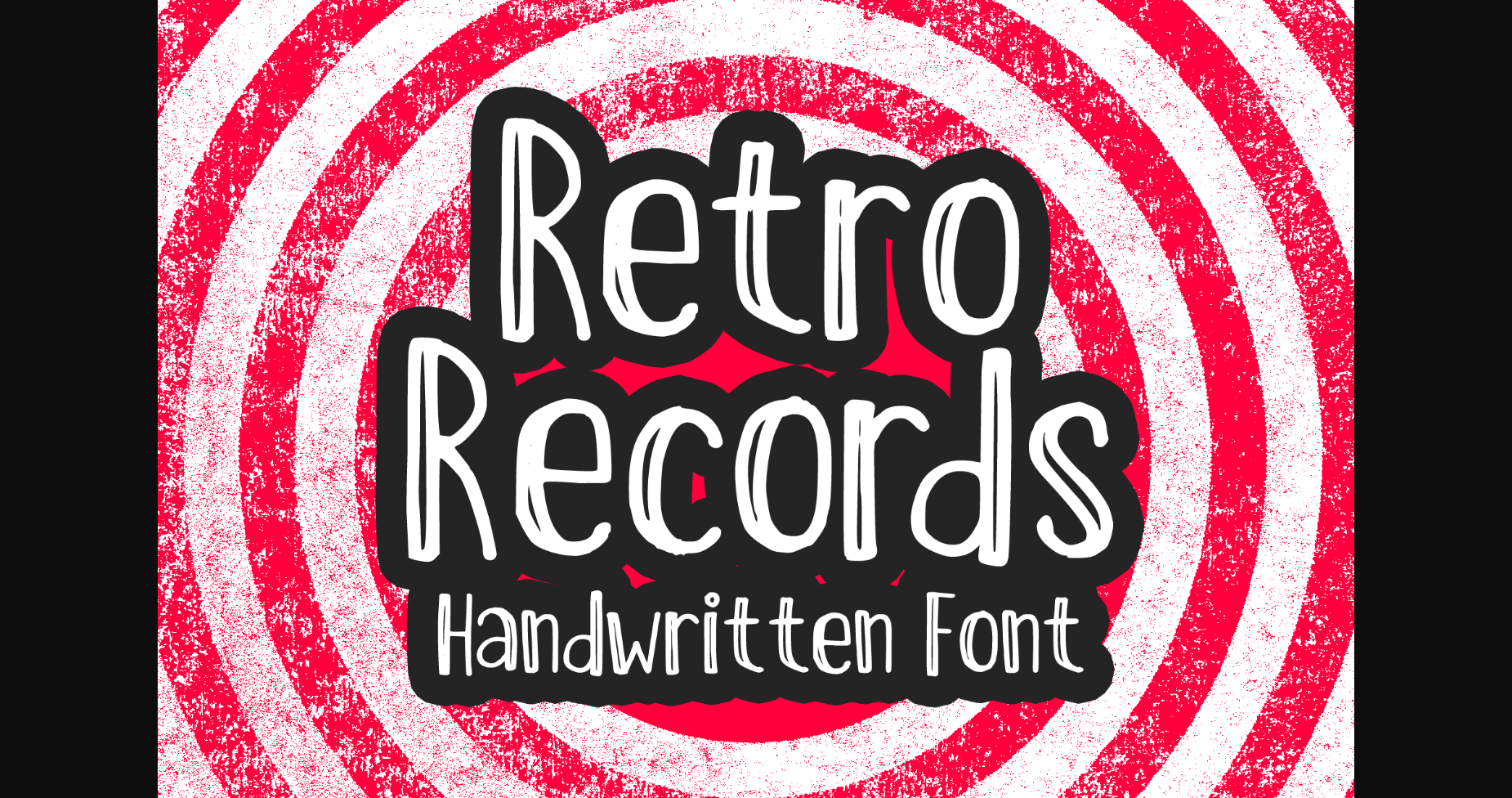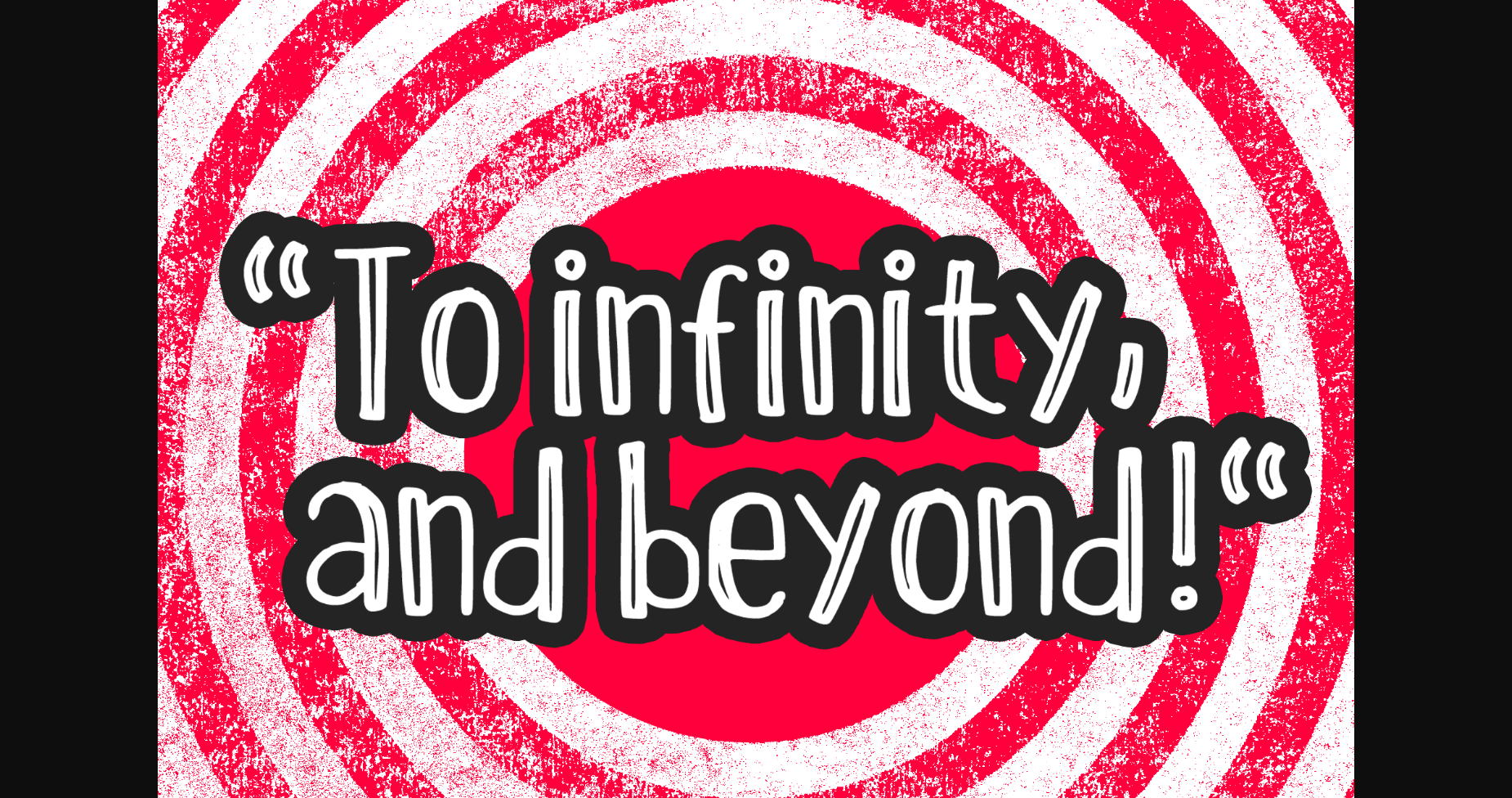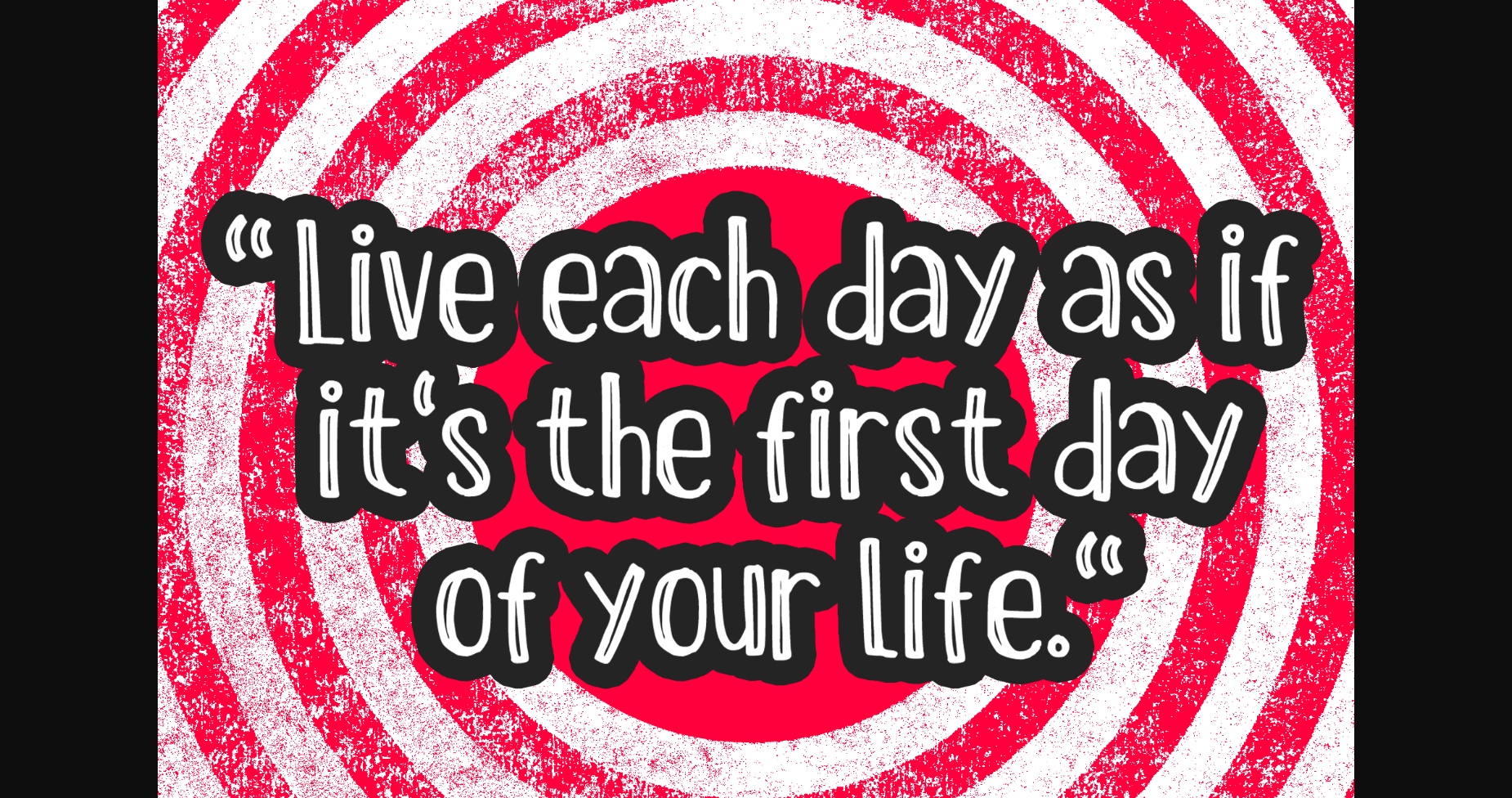
About Retro Records Font
Retro Records is a fun minimalist retro font. You can use it for anything ranging from t-shirts, kids’ book designs, and greeting cards to stickers and posters, or anything that needs a casual touch. Fall in love with its incredibly versatile style, and use it to create lovely designs!